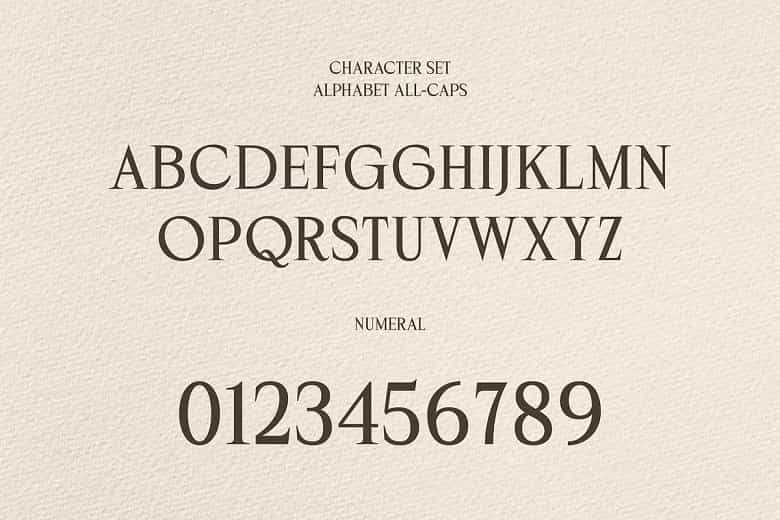
Goteca is an art deco classic serif font published by Hole Hope Design and it has fine, delicate strokes. This font is ideal for vintage lovers as well as lovers of the minimalist style in the modern world. Whether one is creating logos, invitations or any form of editorial layouts, then Goteca is versatile and stylish.